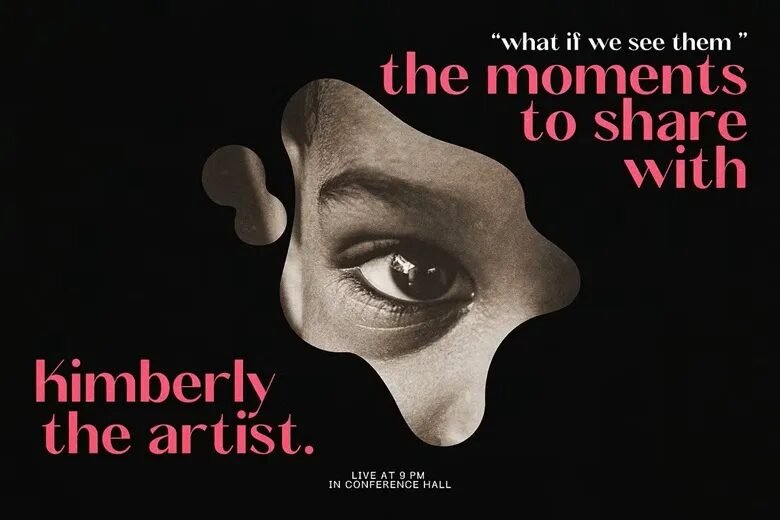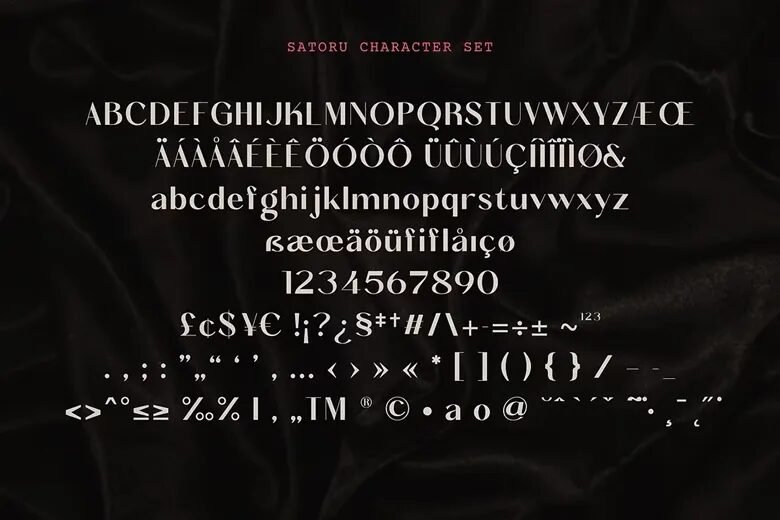
Satoru is a contemporary and elegant sans serif font, which would like the most as display for the headings, logo, branding, the magazines, the product package and the invitation. Satoru are clean lines and smooth curves also add a little more class to any project.